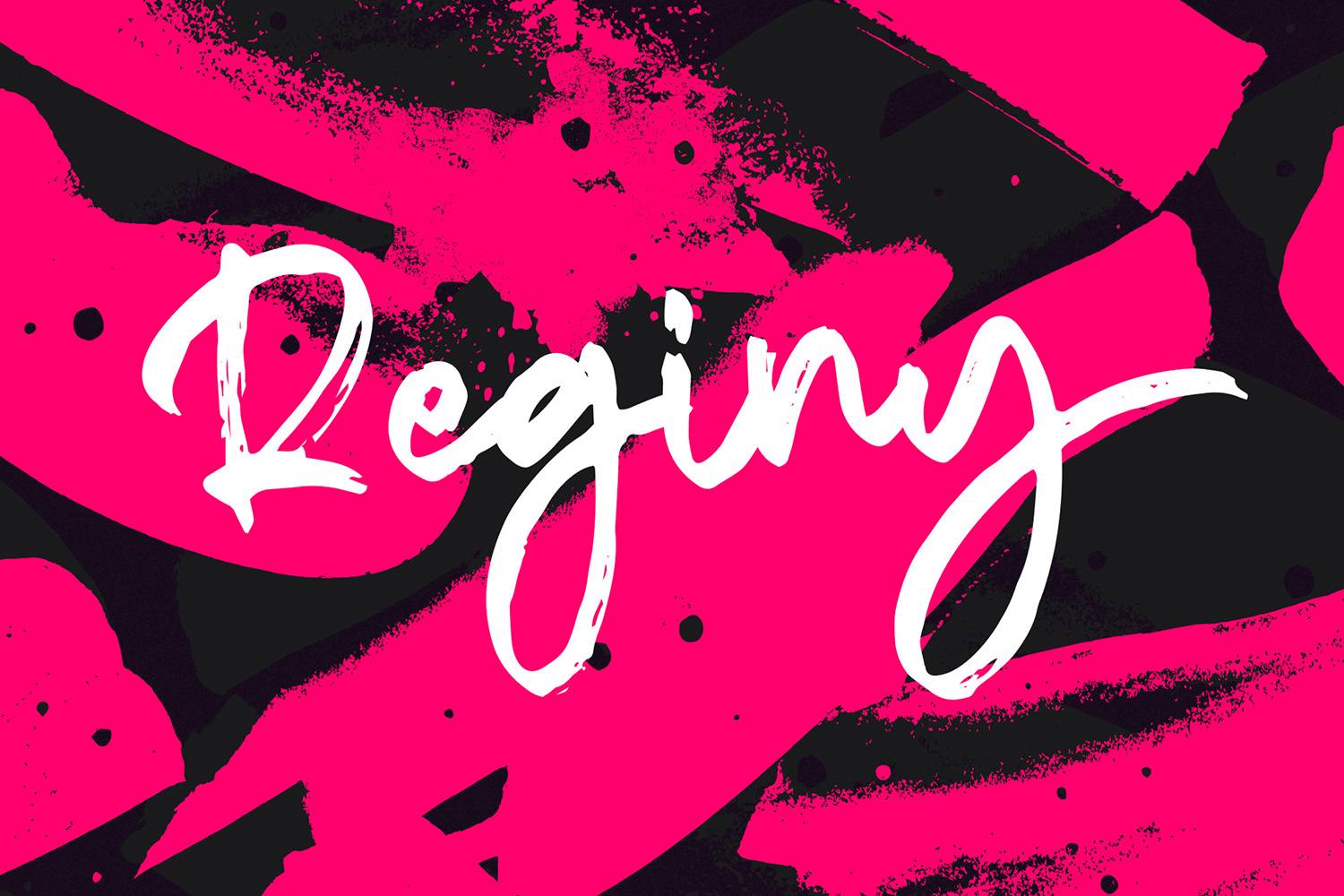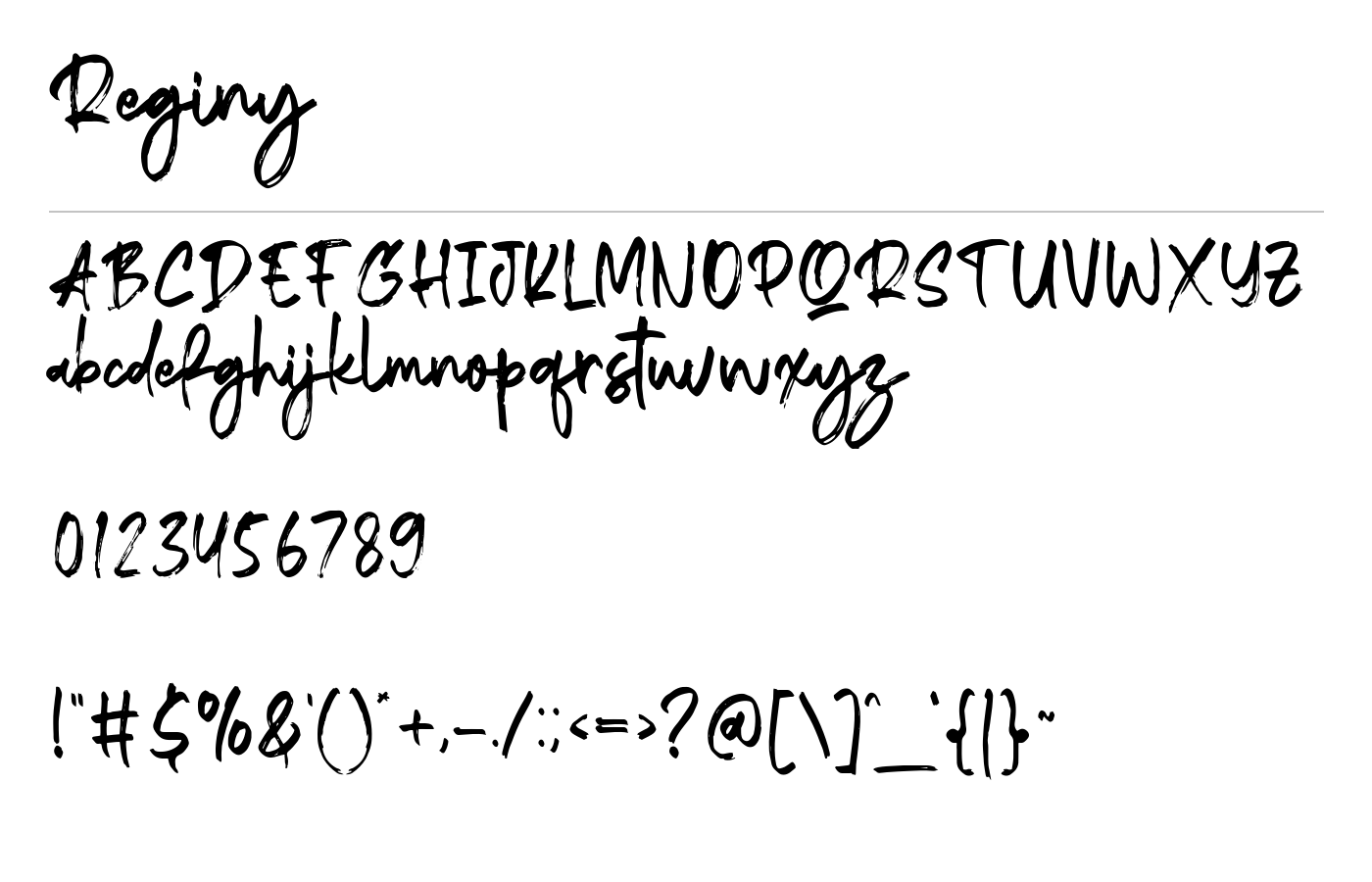
Reginy is a lively and expressive handwritten script font that captures the natural flow of brush lettering with its textured, uneven strokes and energetic style. It combines casual elegance with a slightly rough edge, making it perfect for creative branding, invitations, and personal projects that seek a friendly yet artistic vibe. Its versatility in uppercase, lowercase, and numeral forms ensures it stands out beautifully in logos, headlines, and decorative text.
Reginy Font
About Reginy Font